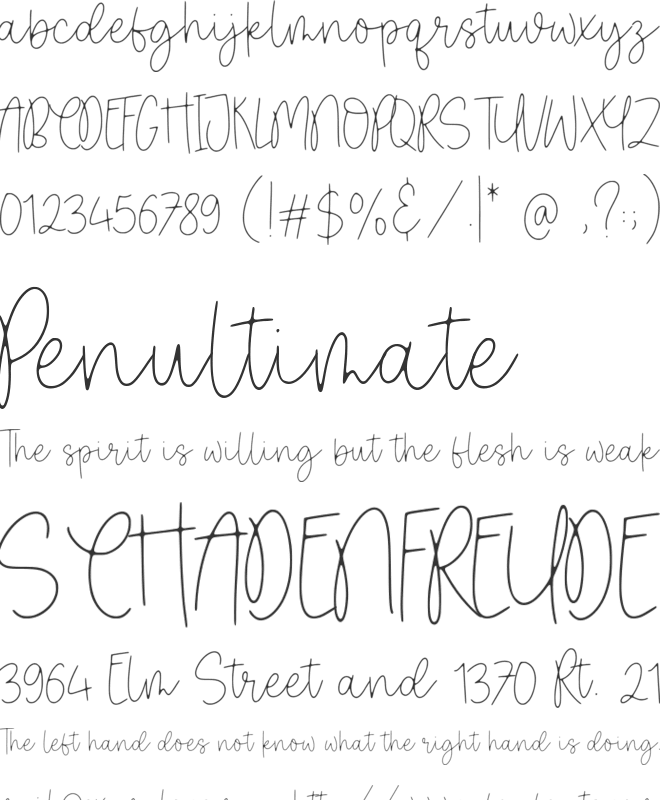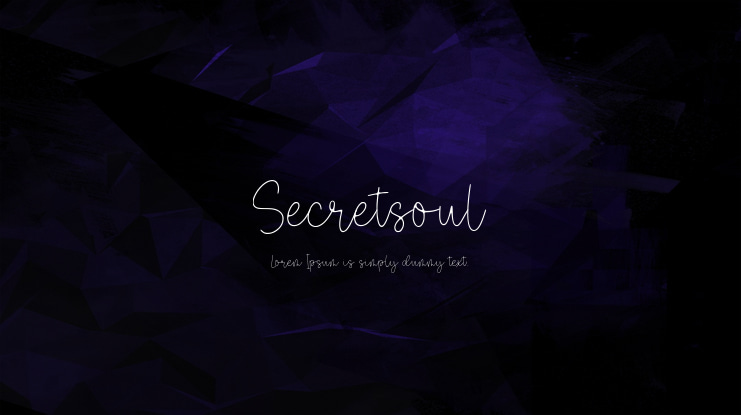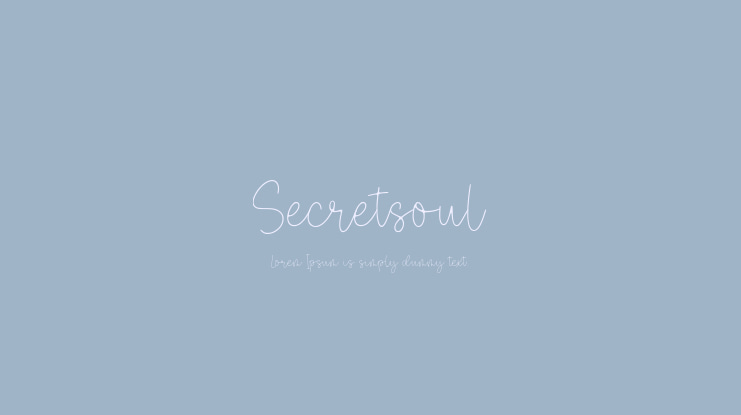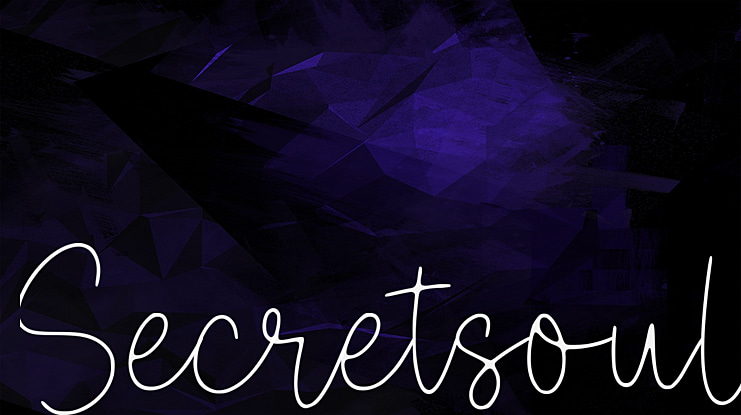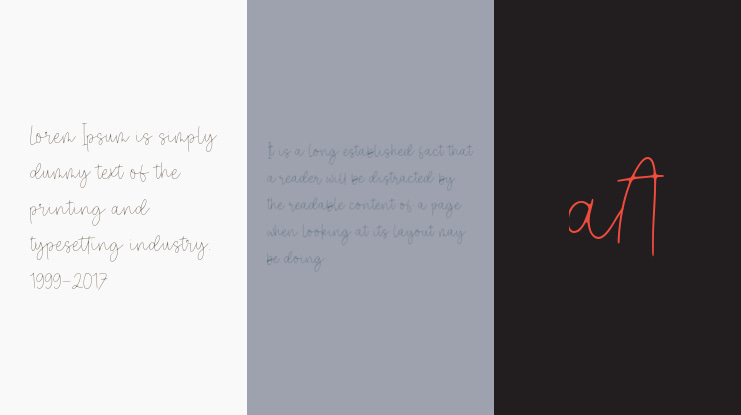
Secretsoul Font
Introducing by Balpirick Studio.
Proudly Present, Secretsoul Font.
Secretsoul is a Monoline Handwritten Font.
Secretsoul Monoline is a thin lettered, refined script font that emanates sophistication and elegance. Its stylish alternates and ligatures make this font the perfect match for any project.